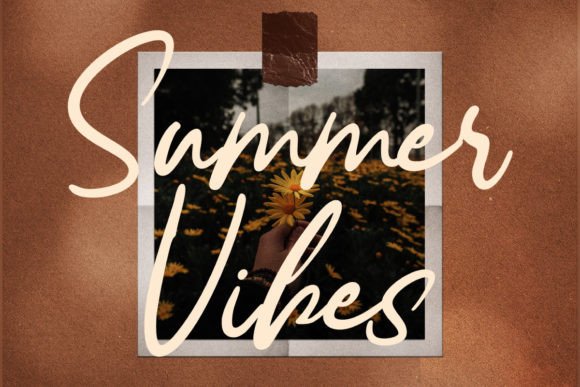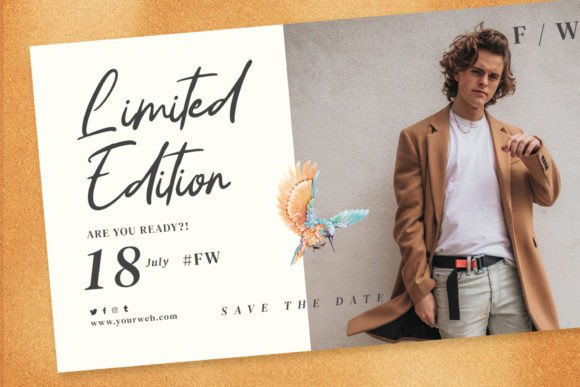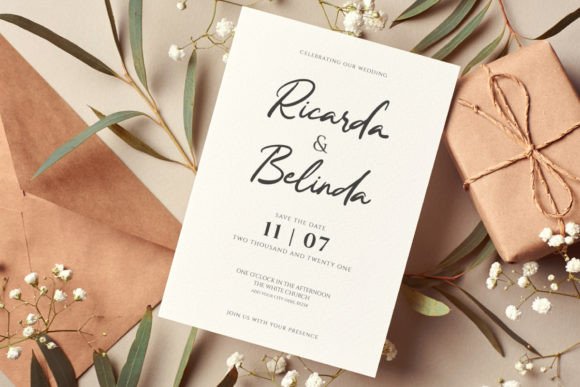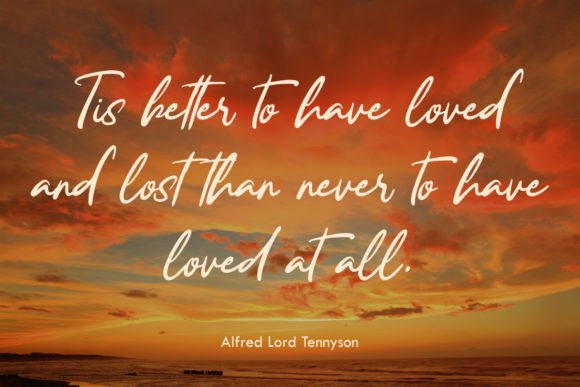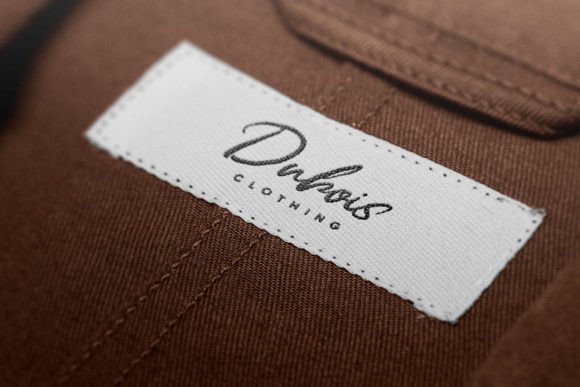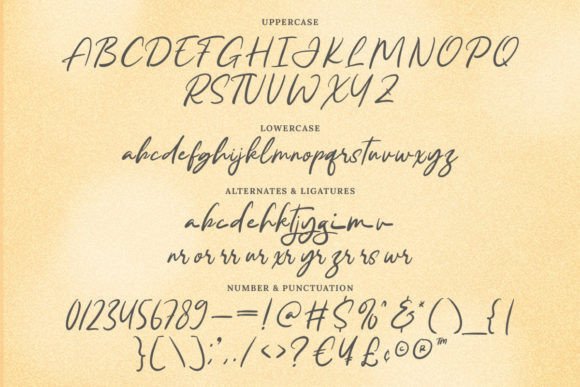
Introduction to Ranchel Font
As a designer, you know that sometimes the perfect font can make all the difference between a good design and a great one. It’s that moment when you’re working on a creative project, and you’re stuck on the perfect typography to convey the message. You search high and low for the perfect font, and then, you stumble upon it – Ranchel Font. This stunning script font is a game-changer, and in this article, we’ll explore its features and why it’s a valuable addition to your design resource.
Ranchel Font is a high-quality, free download that can elevate any design. Its intricate details and elegant feel make it a perfect choice for a wide range of creative projects, from wedding invitations to product branding. With a transparent background, you can easily customize it to fit your design needs.
Key Features of Ranchel Font
- High-quality, unique design ideal for creative projects, with a free download option for designers and artists.
- Ranchel Font is a versatile design resource, suitable for use in a wide range of creative projects, from logos and branding to digital art and typography.
- Unique characteristics include its elegant, cursive script and ornate details, making it a standout choice for designers looking to add a touch of sophistication to their work.
Honest Review: Ranchel Font
I recently stumbled upon the Ranchel Font and I must say it’s a great addition to any design resource library. The fact that it’s a high-quality font and available for free download makes it an even more attractive option for designers.
- ✨ The font has a unique and modern design, making it perfect for creative projects that require a touch of sophistication.
- ✨ The font is highly customizable, making it suitable for a wide range of design applications, from logos to body text.
- ⚠️ The font may not be suitable for designs that require a more traditional or classic feel.
Overall, I’m impressed with the Ranchel Font and I think it’s a valuable resource for designers. While it may not be perfect, its unique design and high-quality make it a great addition to any design library.
Ranchel Font
Tips for Getting the Most Out of the Ranchel Font
Use the Ranchel Font on a transparent background to create a clean and modern look. Experiment with different font sizes and styles to add visual interest to your design. You can also pair the Ranchel Font with other design elements, such as graphics and images, to create a cohesive and engaging design.
The Ranchel Font is perfect for a variety of design projects, including logos, business cards, and social media graphics. It’s also a great choice for creating invitations, flyers, and brochures. You can download the Ranchel Font for free and use it in your next creative project.
Alternatives to Ranchel Font
The Great Vibes Font is a high-quality, elegant script font perfect for creative projects that require a touch of sophistication. It’s available for free download and features a transparent background, making it ideal for overlaying text on images. Use Great Vibes for wedding invitations, event promotions, or any project that demands a stylish, handwritten feel. Compared to Ranchel Font, Great Vibes has a more refined, cursive look that’s better suited for formal designs.